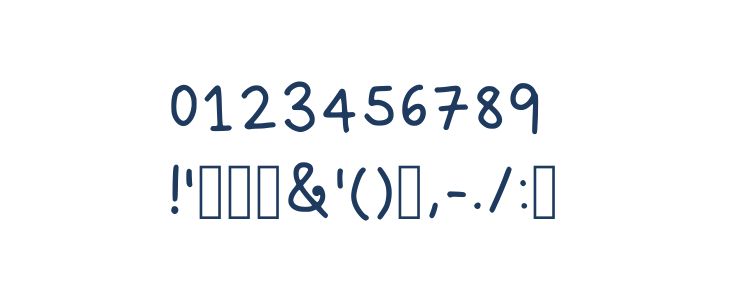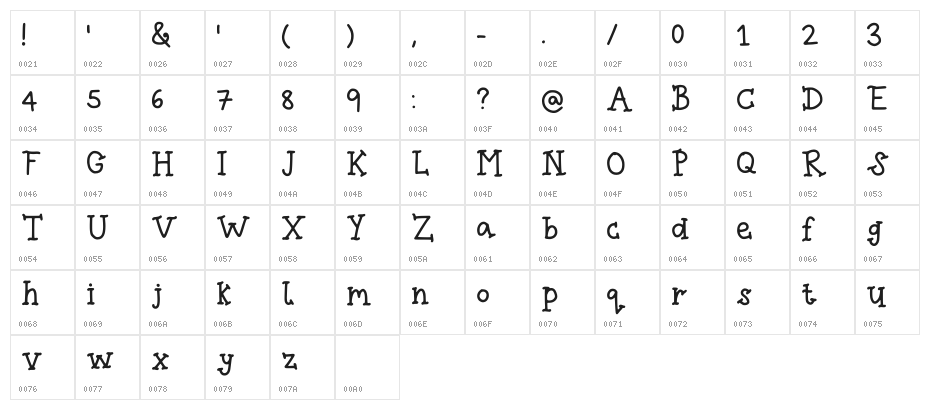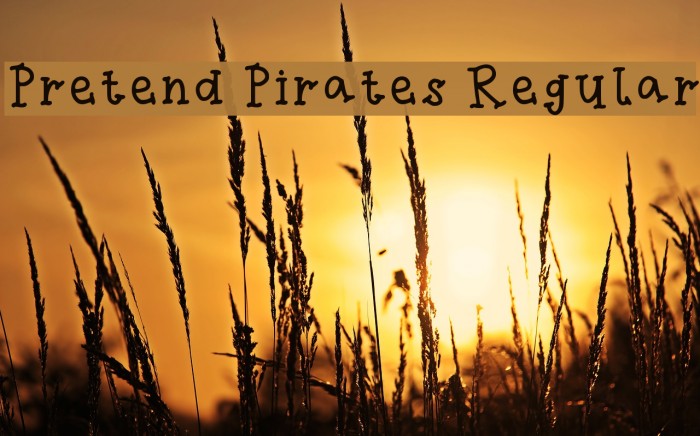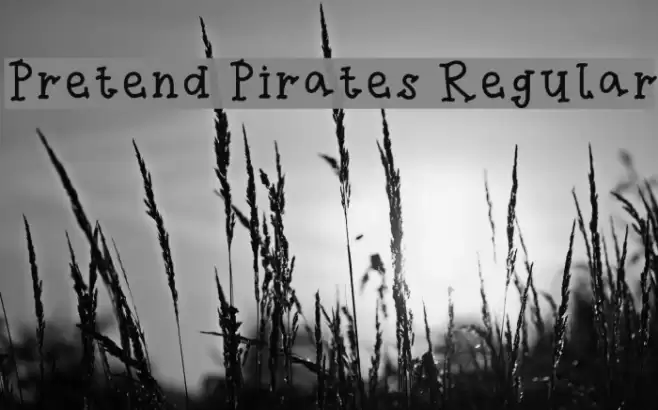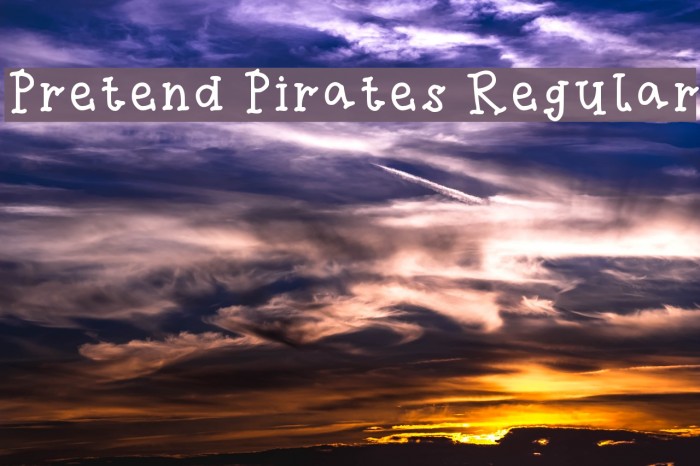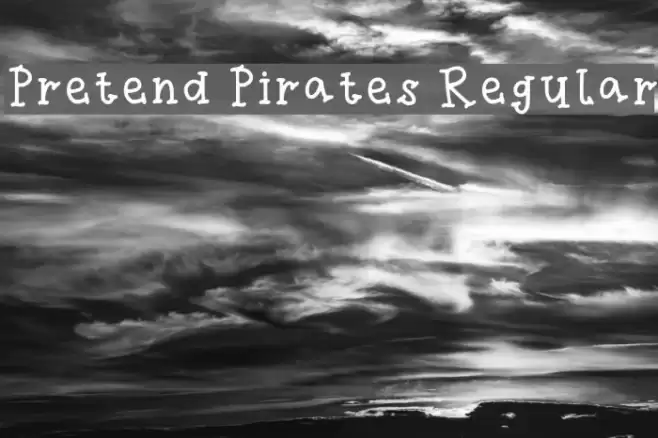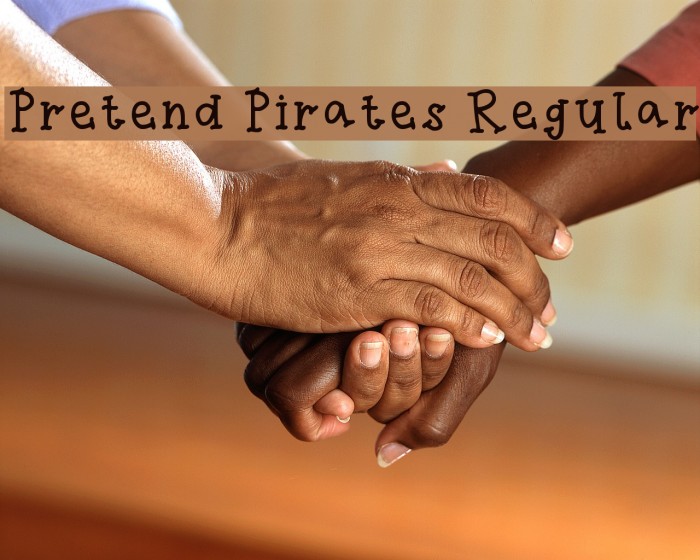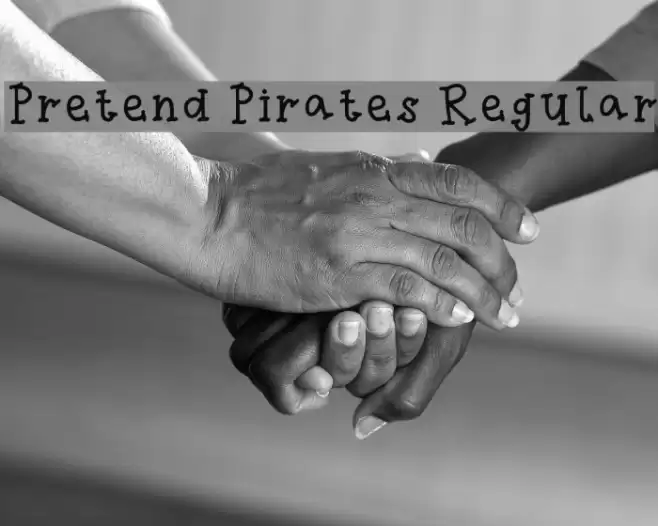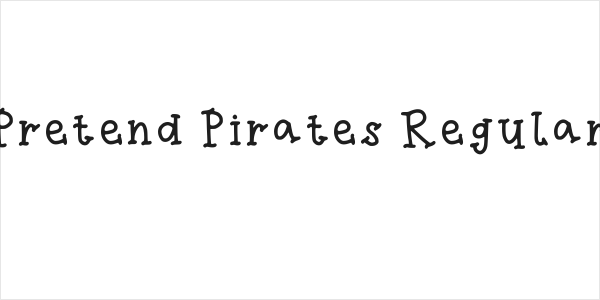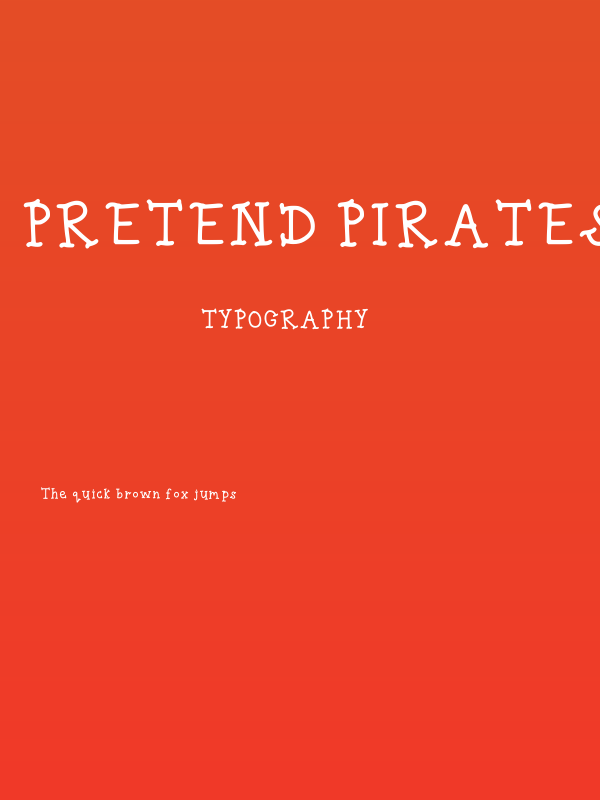
Pretend Pirates Regular Font
Pretend Pirates Regular Description
This font exudes a playful and adventurous spirit, reminiscent of pirate tales and treasure maps. The characters are bold and slightly irregular, giving them a hand-drawn appearance that adds to the whimsical charm. The uppercase letters are tall and commanding, while the lowercase letters maintain a consistent style with a touch of quirkiness. Numbers and special characters follow the same playful design, making them suitable for creative projects. The overall style is decorative, with a medium contrast in stroke thickness, which enhances readability while maintaining its unique character.
| Proposed Projects | Ideal for themed party invitations, children's book titles, adventure-themed posters, and playful branding. |